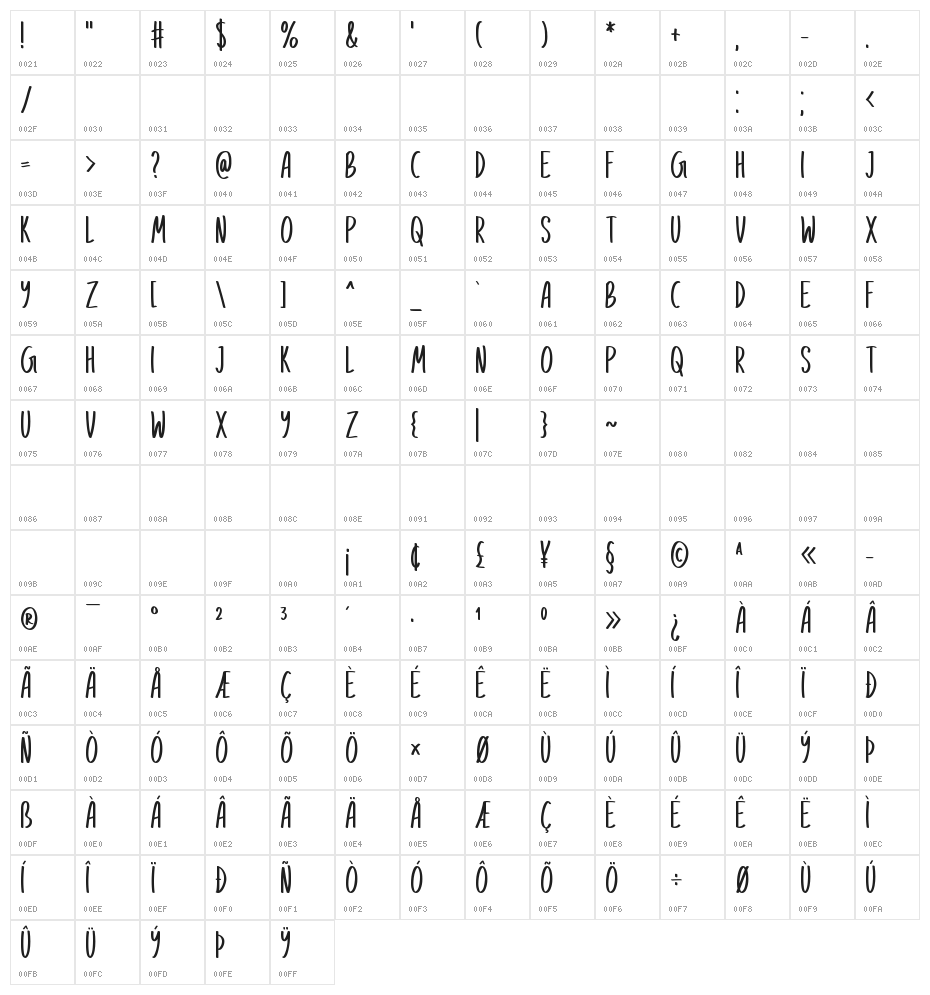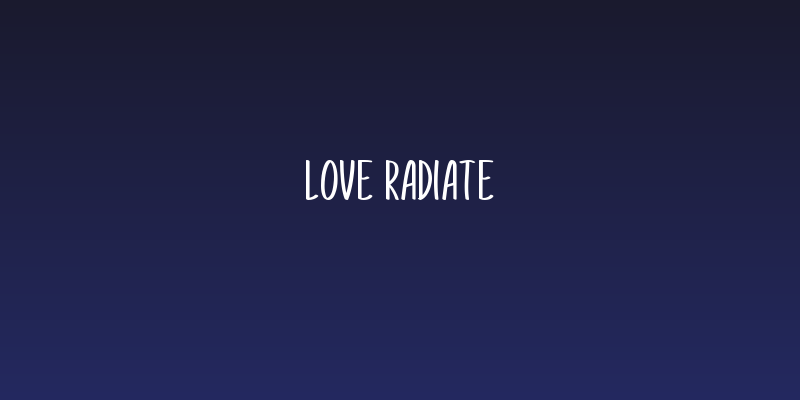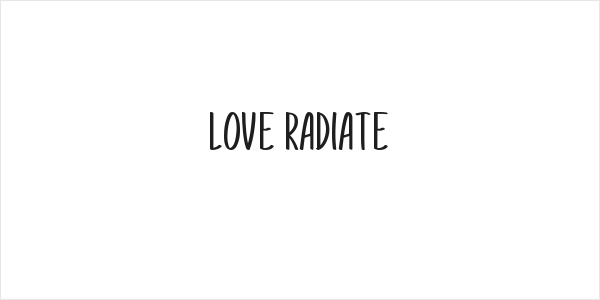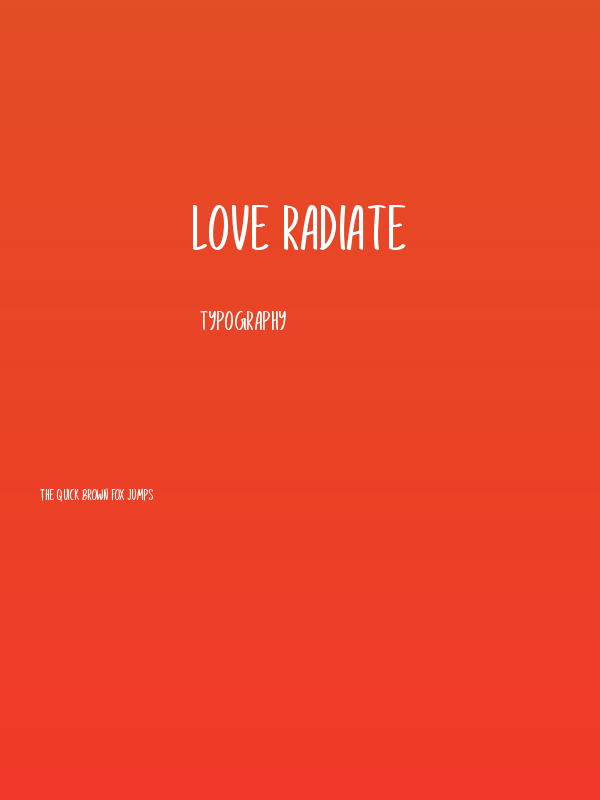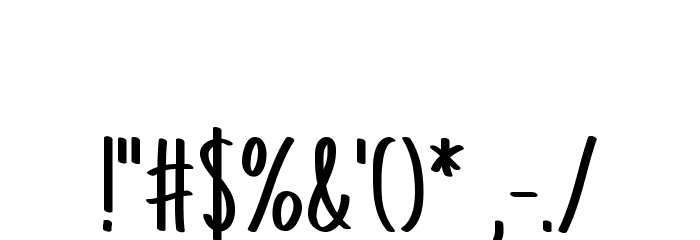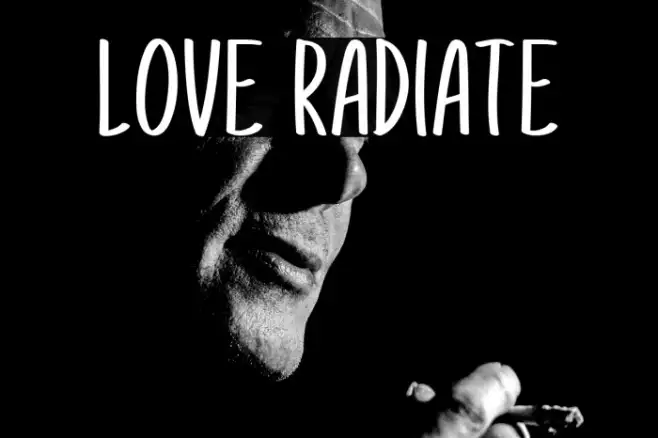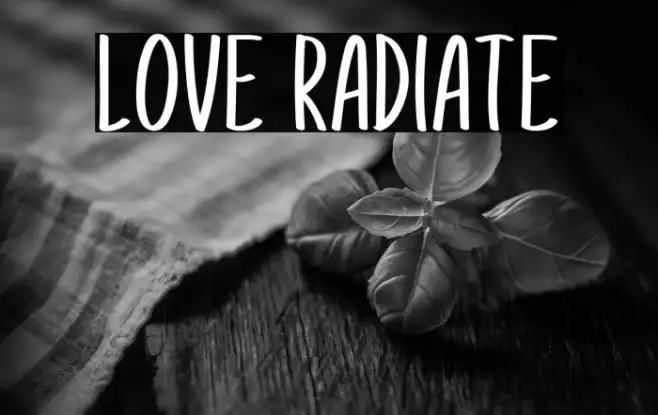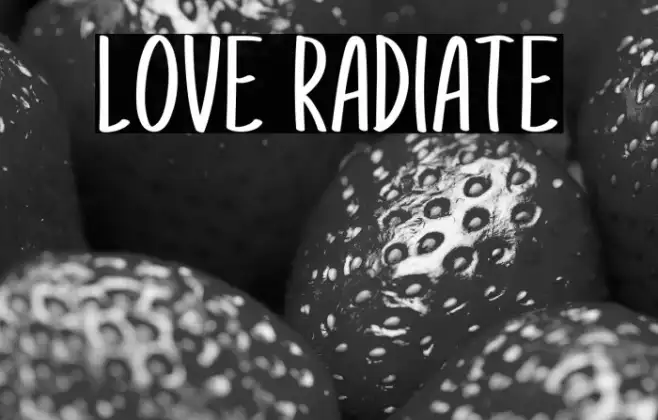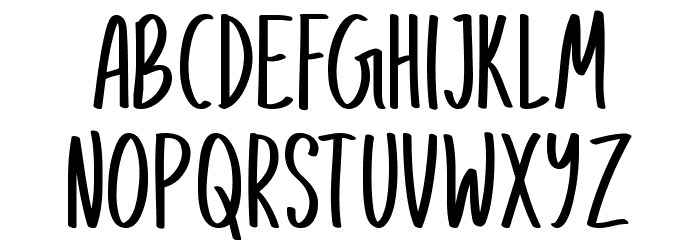
Love Radiate Font
Love Radiate Description
This font exudes a playful and energetic vibe with its bold, handwritten style. The letters are slightly elongated and have a casual, informal appearance, making it perfect for projects that require a personal touch. The strokes are consistent in width, providing a uniform look across all characters. The uppercase and lowercase letters maintain a cohesive style, with rounded edges and a slight slant that adds to the font's dynamic feel. The special characters are well-integrated, matching the overall aesthetic of the font. This font is ideal for creative projects that aim to convey warmth and approachability.
| Proposed Projects | Ideal for greeting cards, invitations, posters, and social media graphics. |